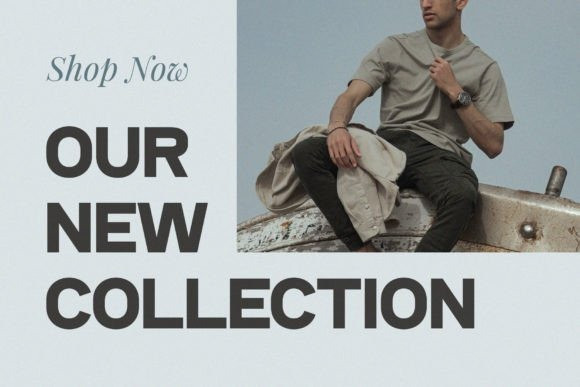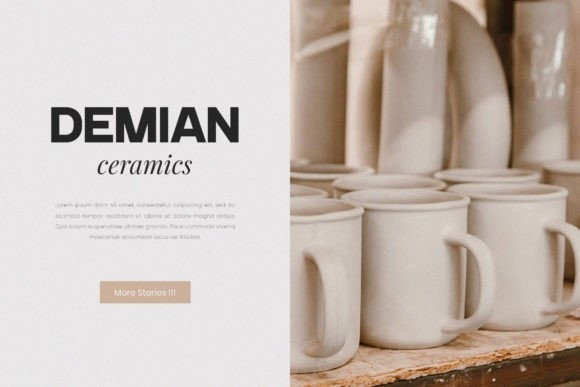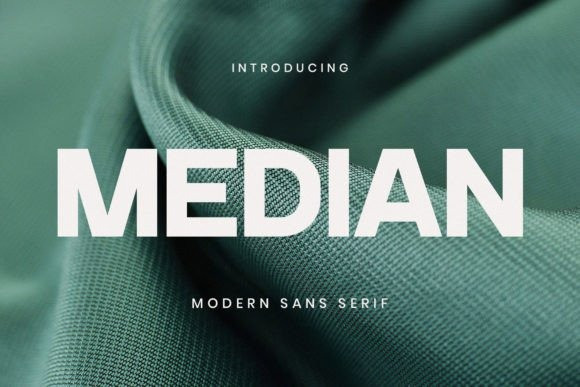
Median Font
Median Sans Serif Font is a modern and classy sans serif typeface, best used as a display for headings, logos, branding, magazines, product packaging, and invitations. Median comes with clean lines and smooth curves, giving any project an extra touch of class.